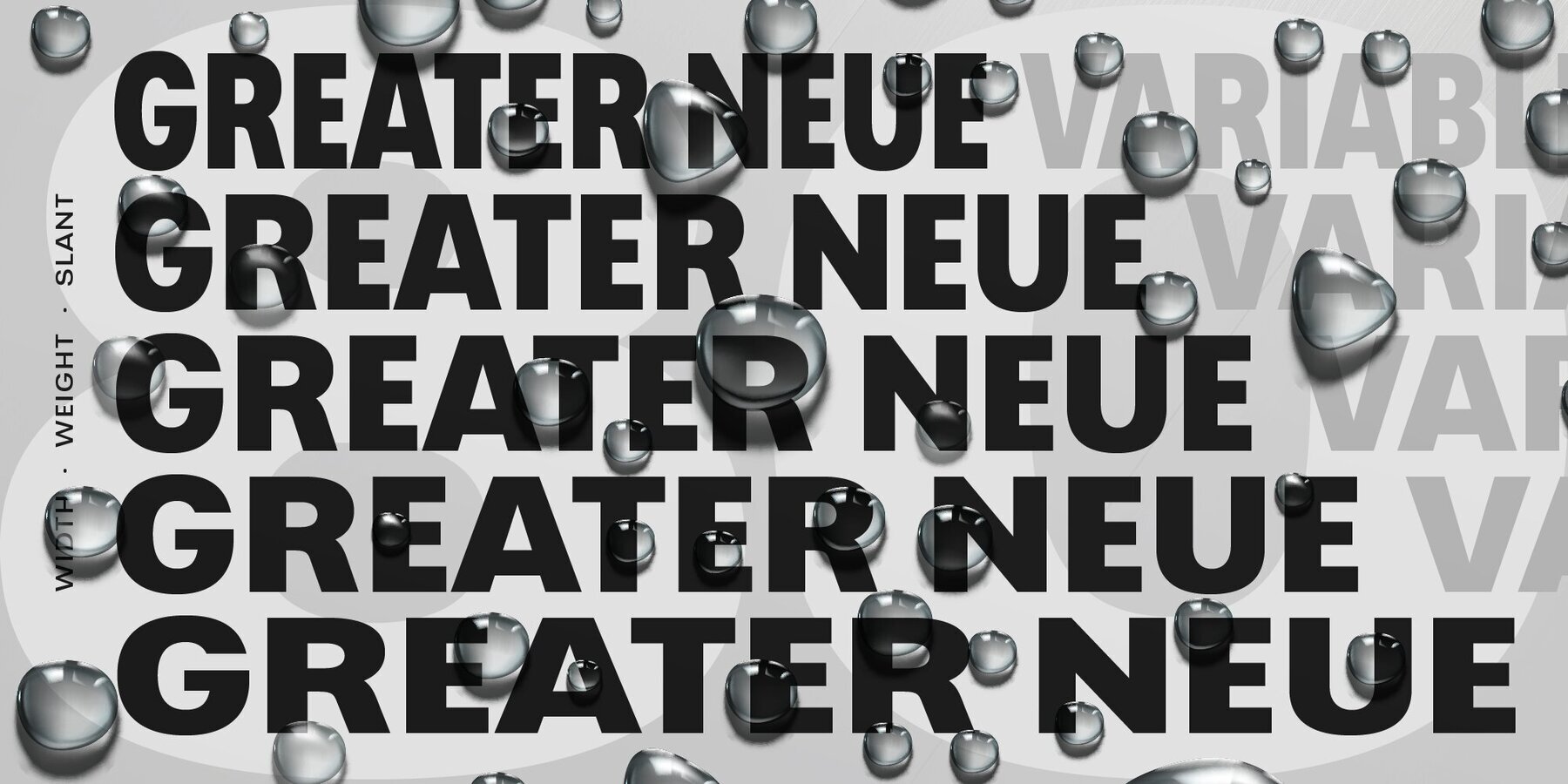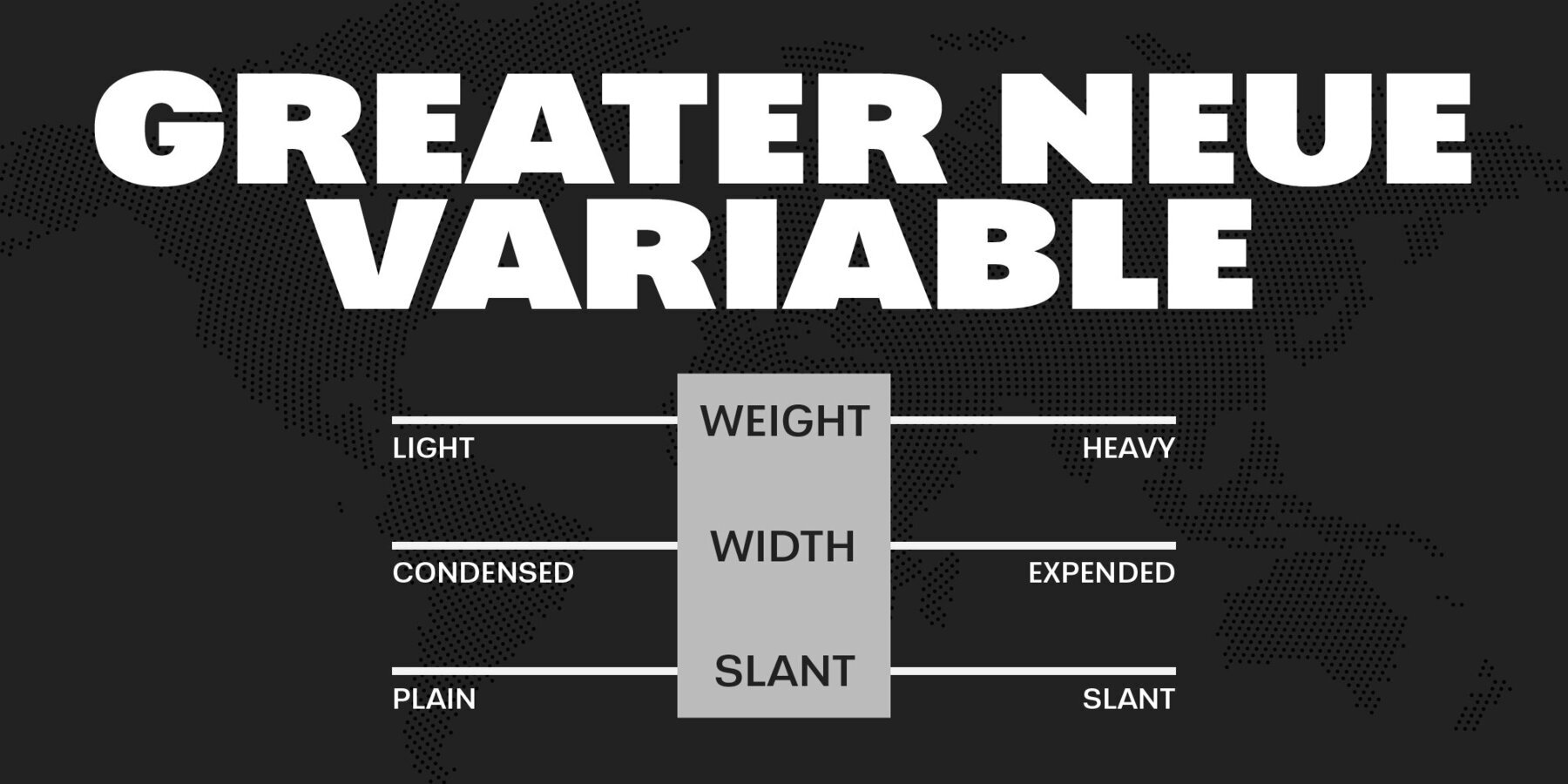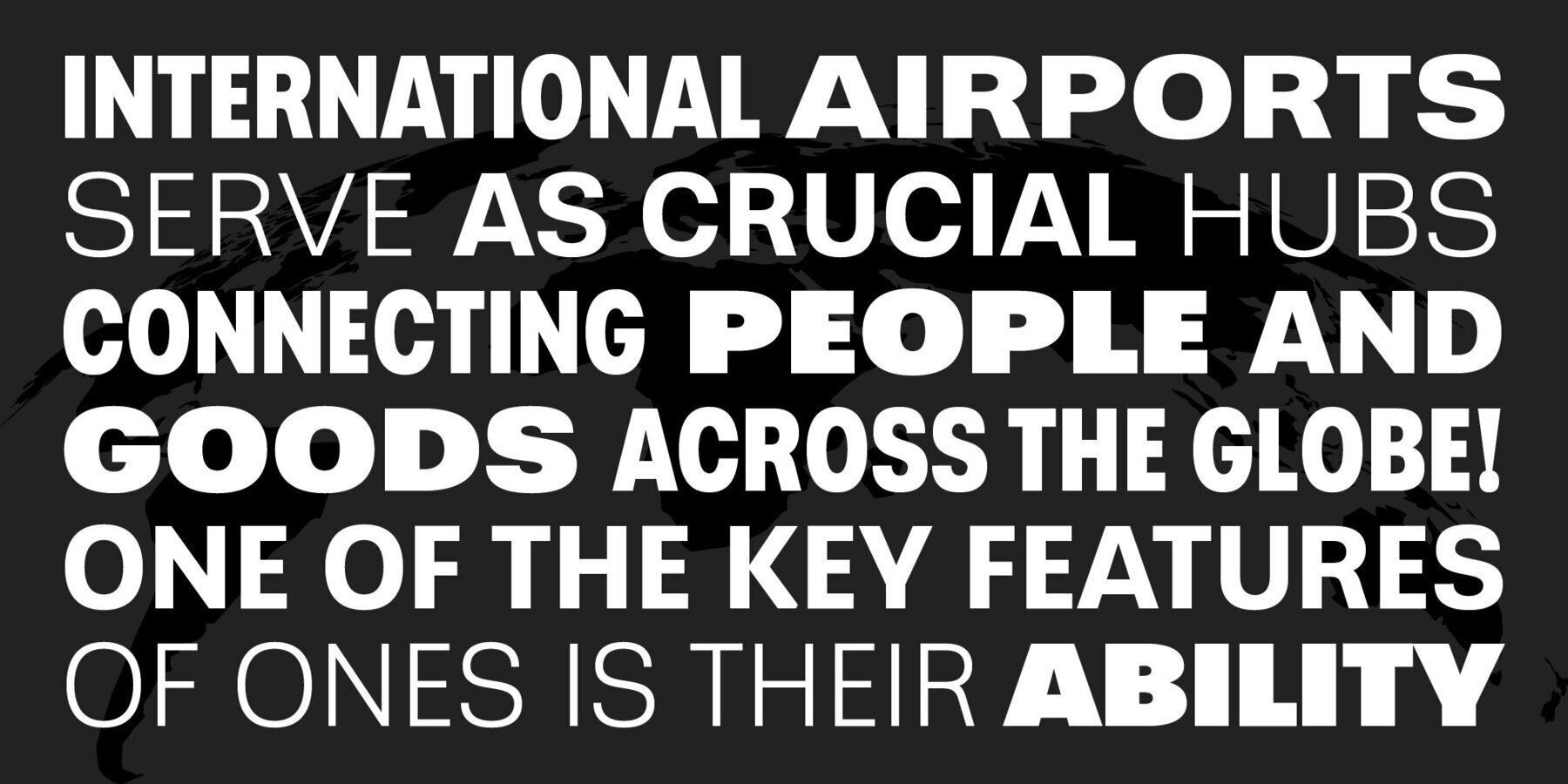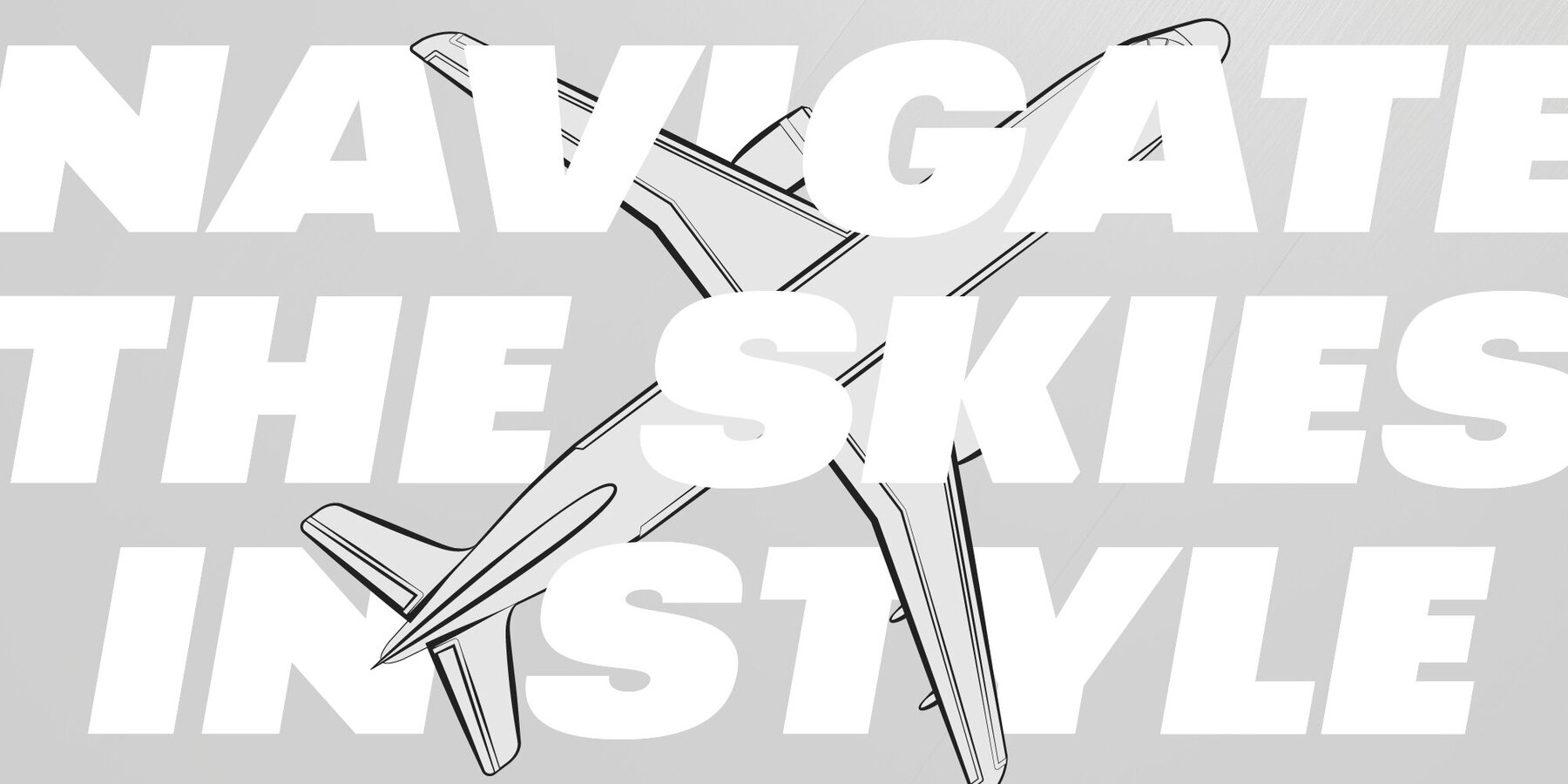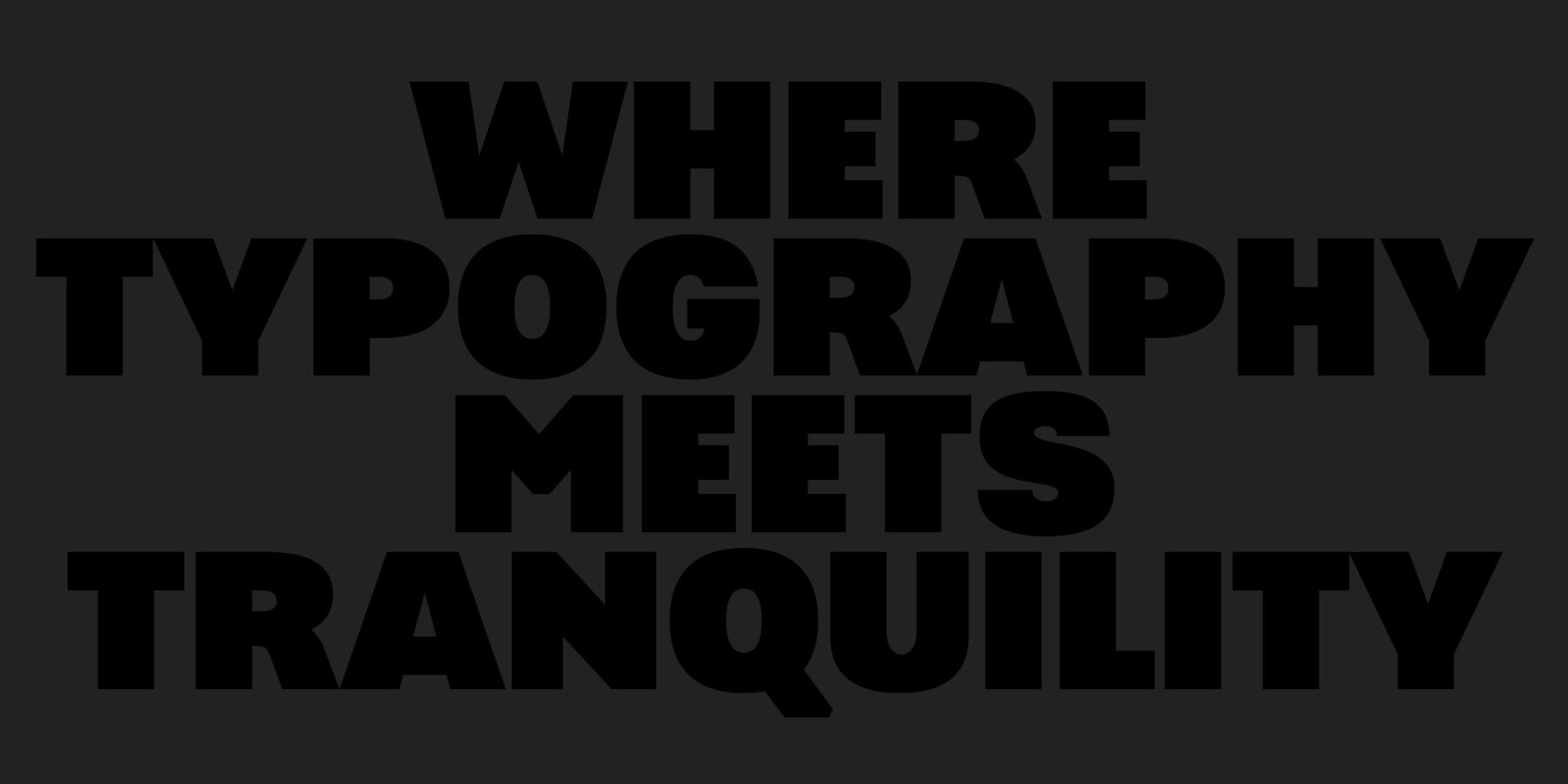
Greater Neue Variable font based on the Greater Nueu family. Variable font includes 5 subfamilies: Condensed, Narrow, Normal, Wide, and Expanded. Harnessing the power of variable font technology, it offers seamless adjustment of weight, width, and slant, empowering designers to customize with unprecedented precision. It is perfect for packaging, advertisements, headlines, and corporate identities. This font family is well-suited for graphic design and any type of display use.